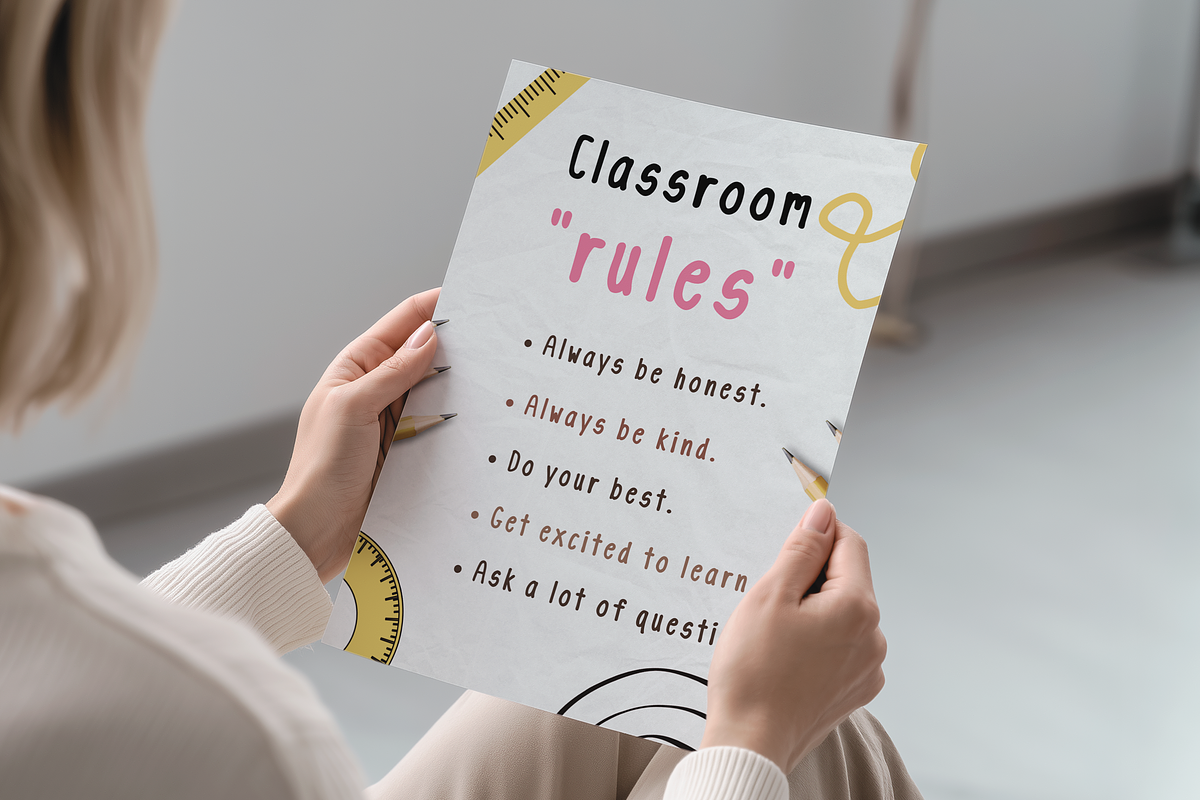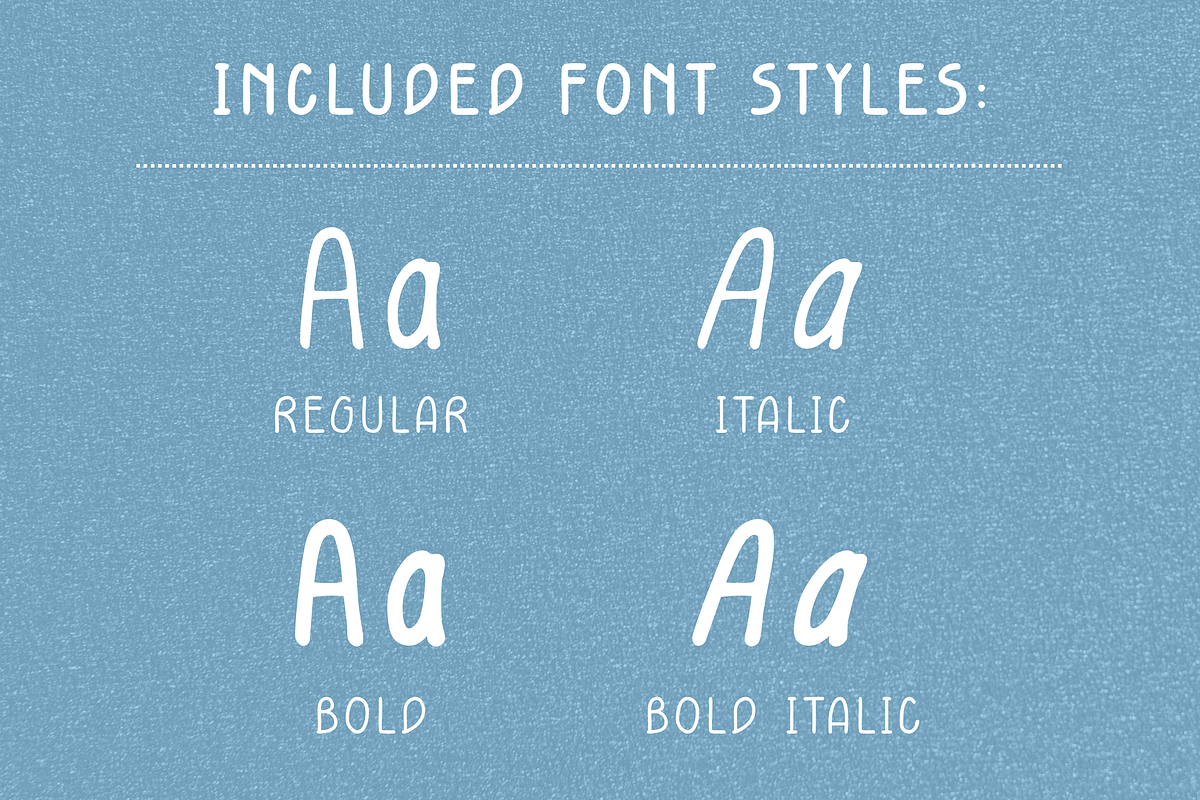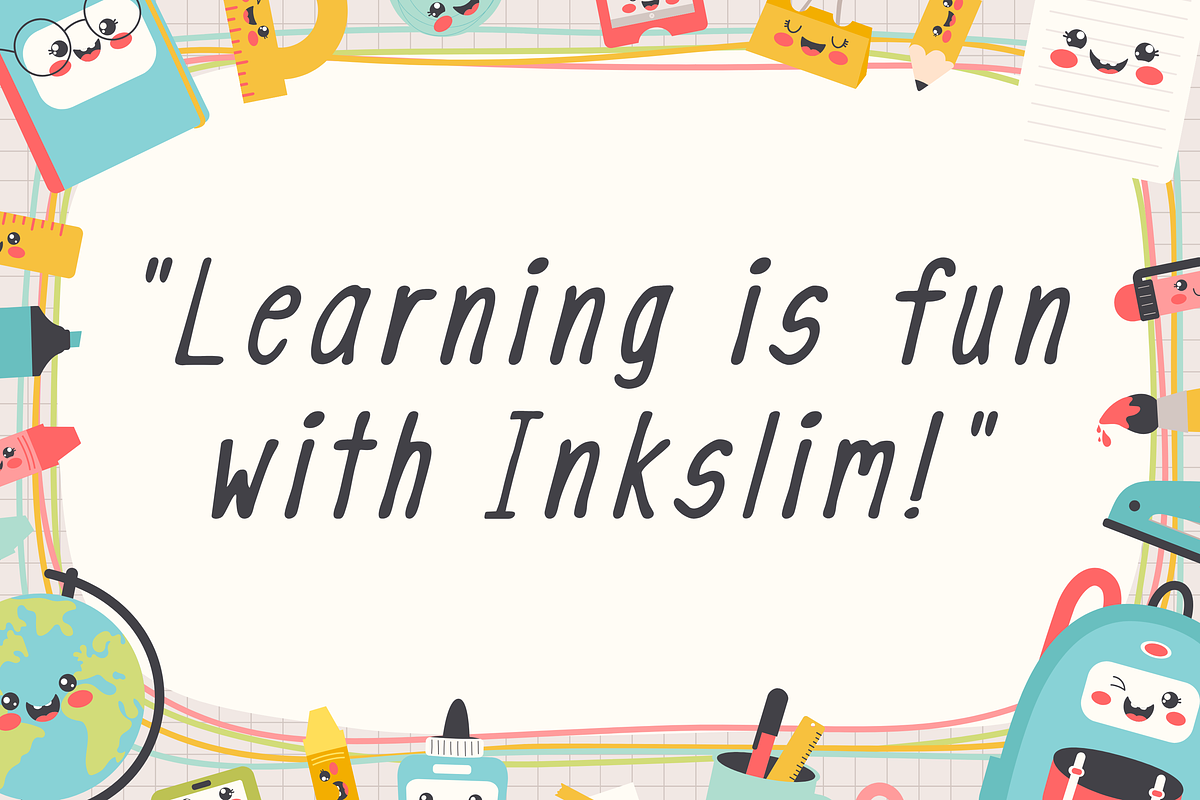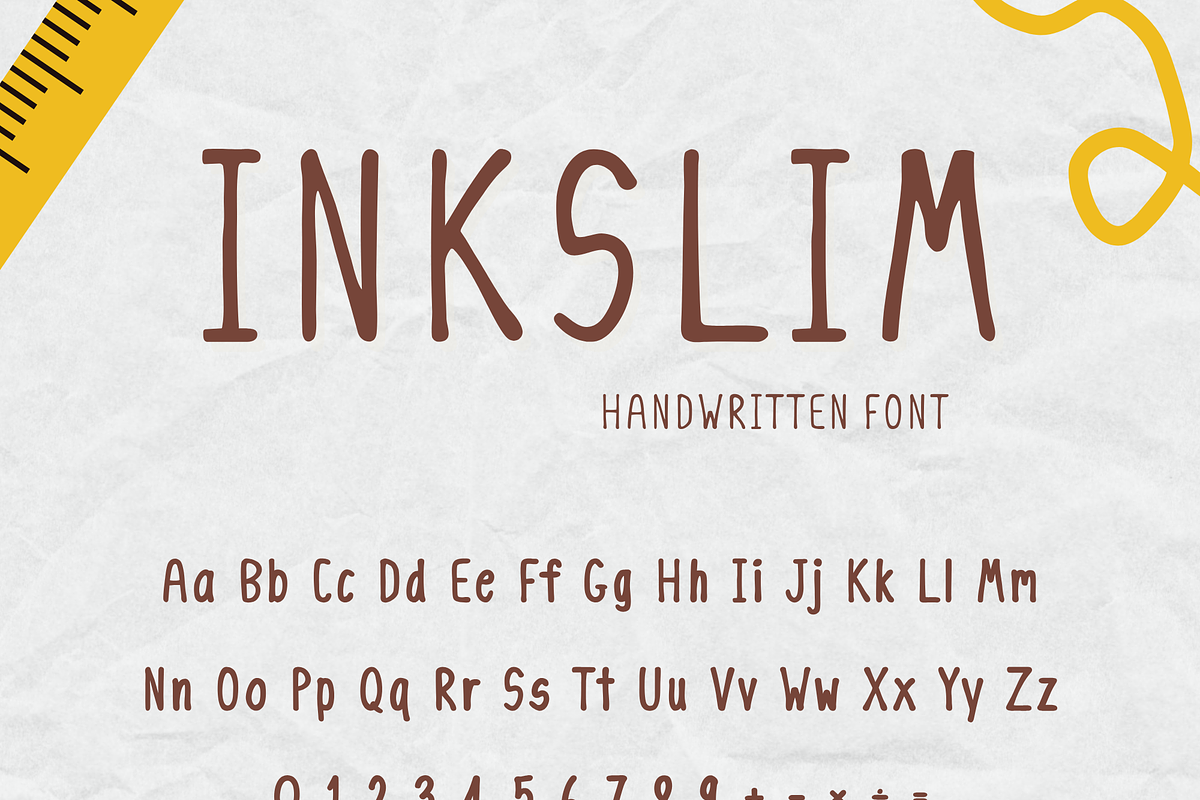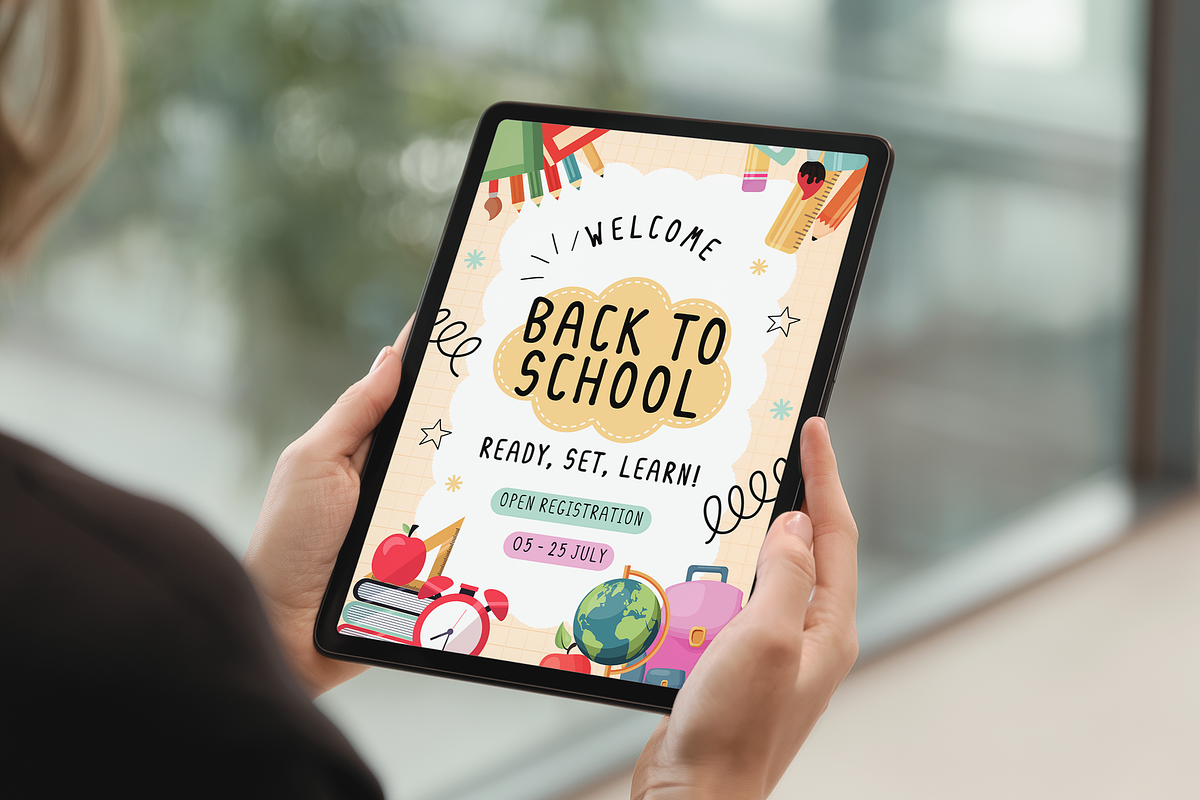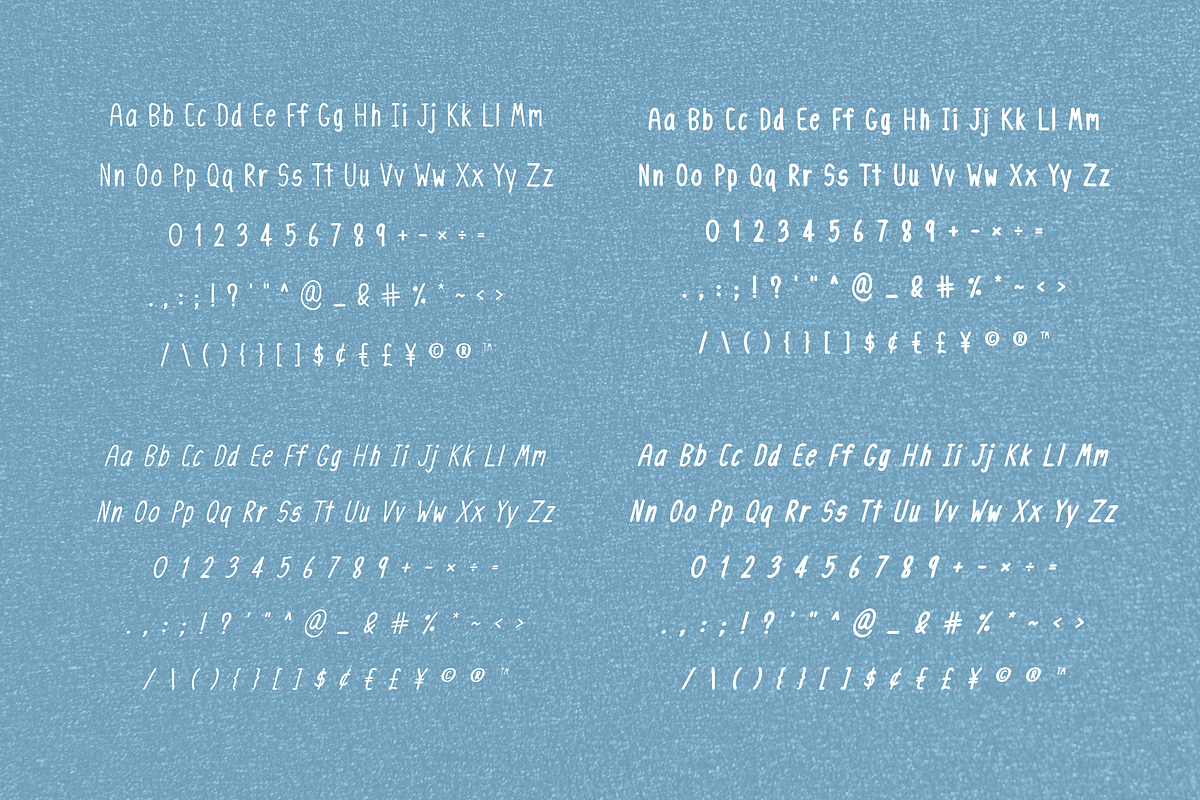
Handwritten Font – inkslim
Inkslim – Handwritten Font (4 styles)
Give your creative projects a personal touch with Inkslim, a whimsical handwritten font designed to feel like real ink strokes. Perfect for everything from logos to invitations, sublimation designs, stickers, and Cricut crafts – this font blends playfulness with clarity.